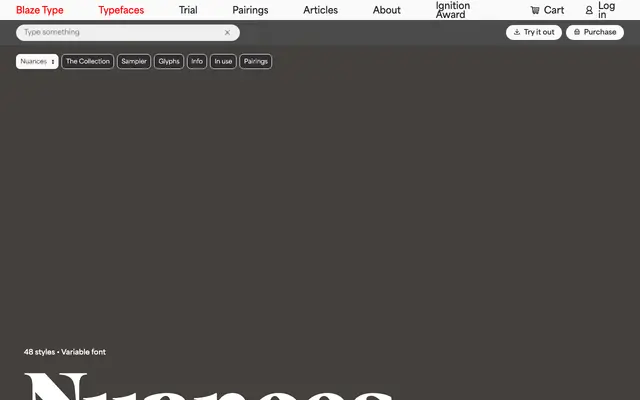
Nuances
A three-width serif family from Blaze Type spanning 48 styles across Condensed, Normal and Extended cuts, each with eight weights and matching italics.
The family is built around three distinct widths — Condensed, Normal and Extended — each running from Thin to Black with italic companions, giving designers 48 static styles alongside a variable font. That breadth makes it adaptable across text sizes, editorial layouts and display applications where width contrast between headings and body copy is useful. The variable font consolidates the range into a single file for screen and interactive use.
The page designates it a serif family; the name 'Nuances Serif' and the range of weights from Thin to Black across three width variants suggest a contemporary text and display serif with humanist tendencies.